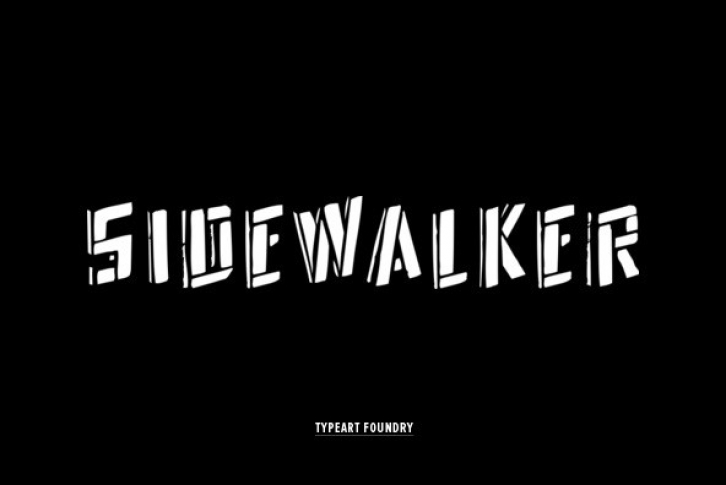
Sidewalkerâ„¢ is a uniquely angled version of one of our Frankensteinâ„¢ fonts.
Each font in the Sidewalkerâ„¢ family has a full character set of 232+ letterforms, with all characters designed in the style of the font.